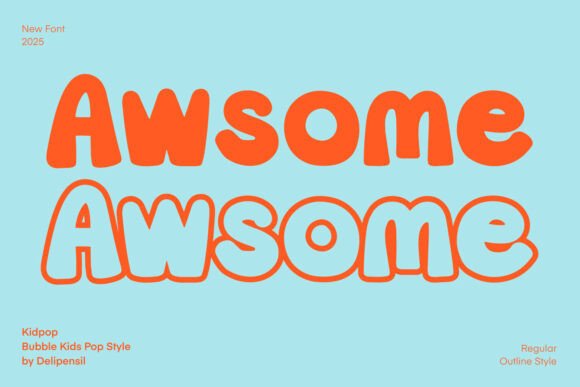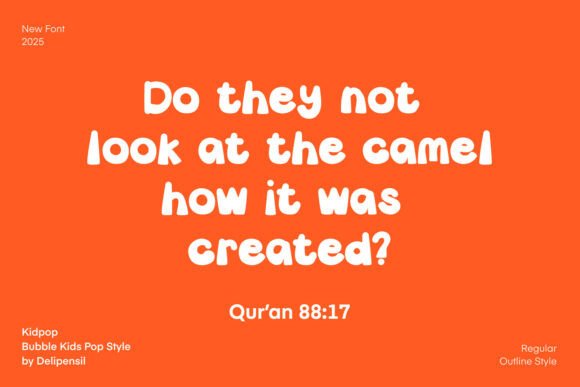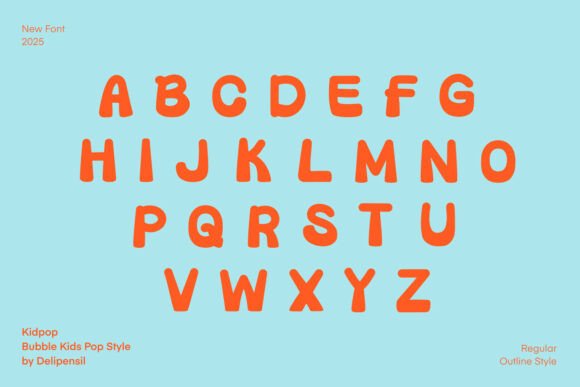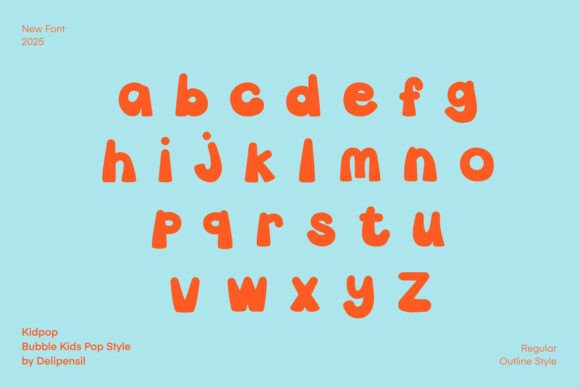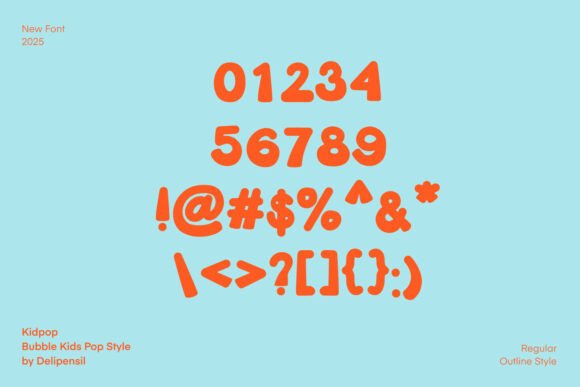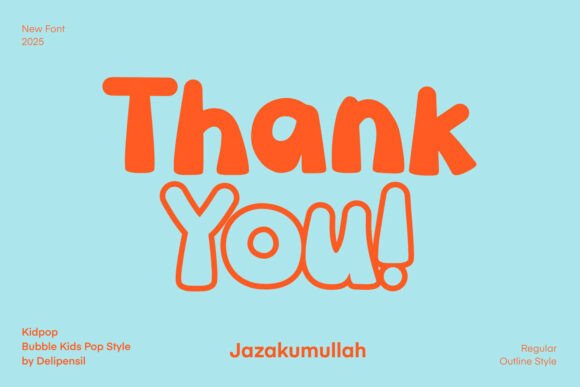
The Magic of Kidpop Font: Bringing Joy to Your Designs
Have you ever stumbled upon a font that instantly sparks a wave of creativity and puts a smile on your face? For designers, this moment of inspiration can be a game-changer. It happened to me when I discovered the Kidpop Font – a cheerful and energetic display font designed to bring fun, imagination, and personality into any creative project.
Kidpop Font is more than just a font; it’s a key to unlocking vibrant and joyful designs that captivate audiences of all ages. With its rounded, expressive letterforms, Kidpop Font is perfect for kids-themed designs, fun posters & banners, playful logos and branding, storybooks & illustrations, educational materials, and colorful social media content. Whether you’re working on a project for kids or simply want to add a playful touch, Kidpop Font is the perfect companion.
Kidpop Font Key Features
- Font Family: Kidpop Font is a sans-serif font designed specifically for children’s media.
- Size: Kidpop Font comes in 4 different font sizes: Kidpop (12-14pt), Kidpop Bold (12-14pt), Kidpop Italic (12-14pt), and Kidpop Bold Italic (12-14pt).
- Resolution: Optimized for high-resolution displays, Kidpop Font looks crisp and clear at resolutions up to 300 DPI.
- Unique Characteristics: Kidpop Font features rounded edges, soft corners, and playful letterforms that make it perfect for children’s books, educational materials, and other kid-friendly content.
- Character Count: Kidpop Font includes a wide range of characters, including uppercase and lowercase letters, numbers, punctuation marks, and special characters, making it a versatile font for various applications.
Kidpop Font Review
I recently had the chance to work with the Kidpop Font, and I must say it’s a fun and playful addition to any project. ✨ The font’s rounded edges and bubbly feel immediately evoke a sense of youthfulness and energy.
- ✨ Unique and fun design that’s perfect for kids’ projects or anything that requires a playful touch
- ✨ Easy to read and understand, even at smaller font sizes
- ✨ Great for titles, headings, and short blocks of text
However, as with any font, there are some limitations to consider. ⚠️ The Kidpop Font can feel a bit overwhelming if used extensively throughout a project. It’s best to use it sparingly to avoid visual fatigue.
- ⚠️ May not be suitable for formal or professional projects
- ⚠️ Can be difficult to read at very small font sizes
- ⚠️ Limited language support, which may be a concern for multilingual projects
Overall, the Kidpop Font is a great addition to any designer’s toolkit. It’s perfect for projects that require a playful touch, but it’s not suitable for every occasion. With careful use, it can add a fun and engaging element to your designs.
Getting the Most Out of Kidpop Font
Some tips to get the most out of the Kidpop Font include:
– Using it in combination with bright, bold colors to create a playful and eye-catching design.
– Experimenting with different font sizes and styles to add visual interest.
– Pairing it with other fun and playful fonts to create a unique and creative look.
The Kidpop Font is ideal for:
– Children’s party invitations and decorations.
– Fun and playful social media graphics.
– Educational materials and worksheets.
– Any project that requires a fun and youthful vibe.